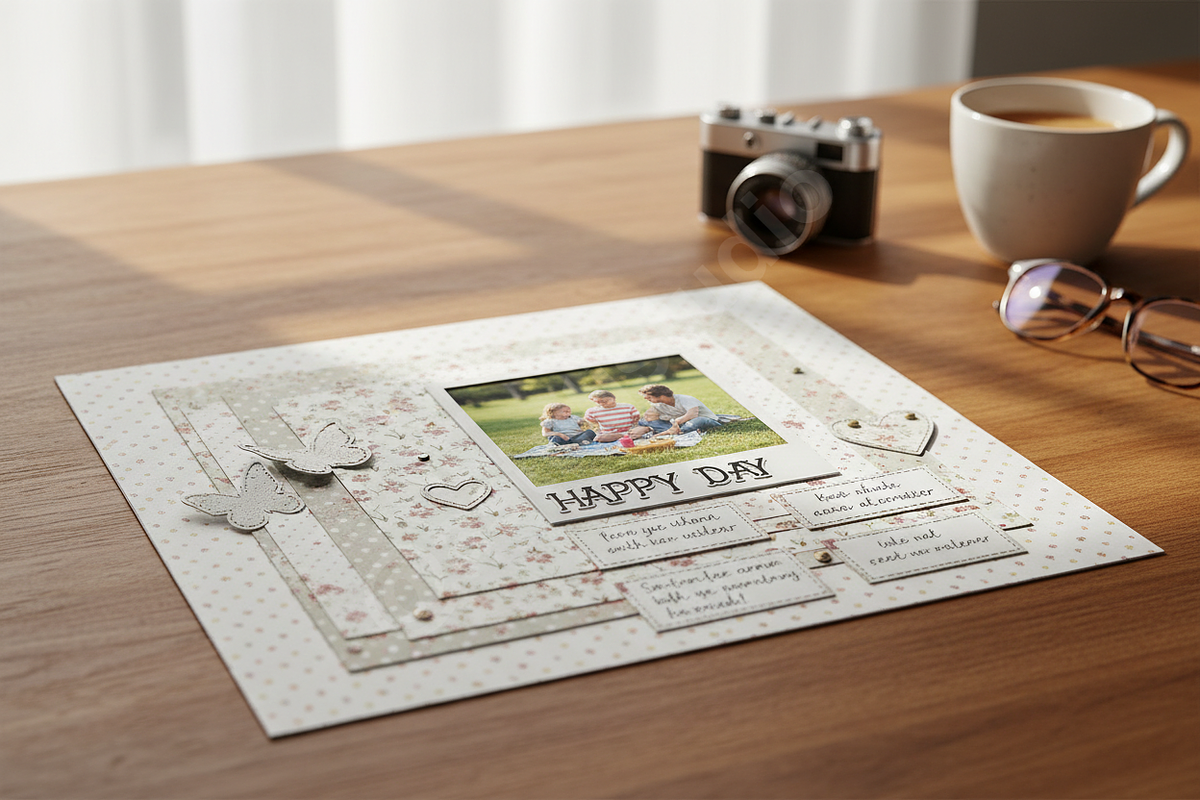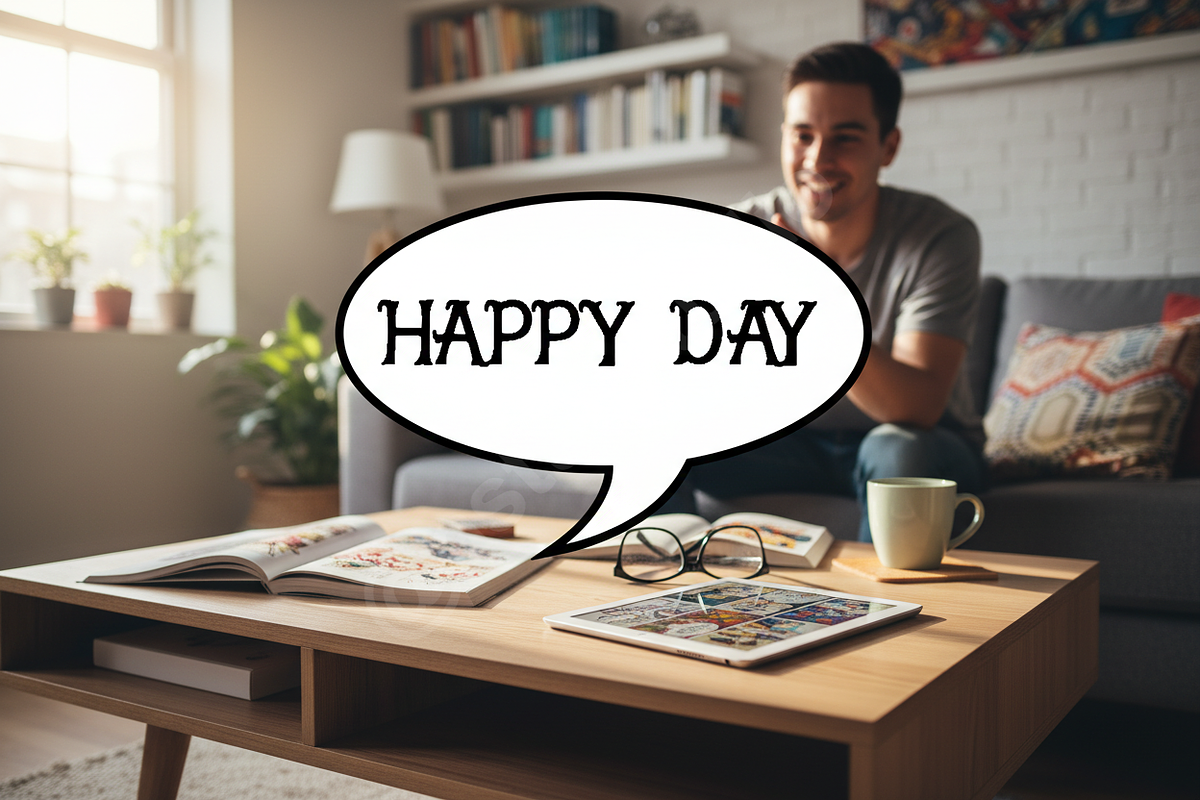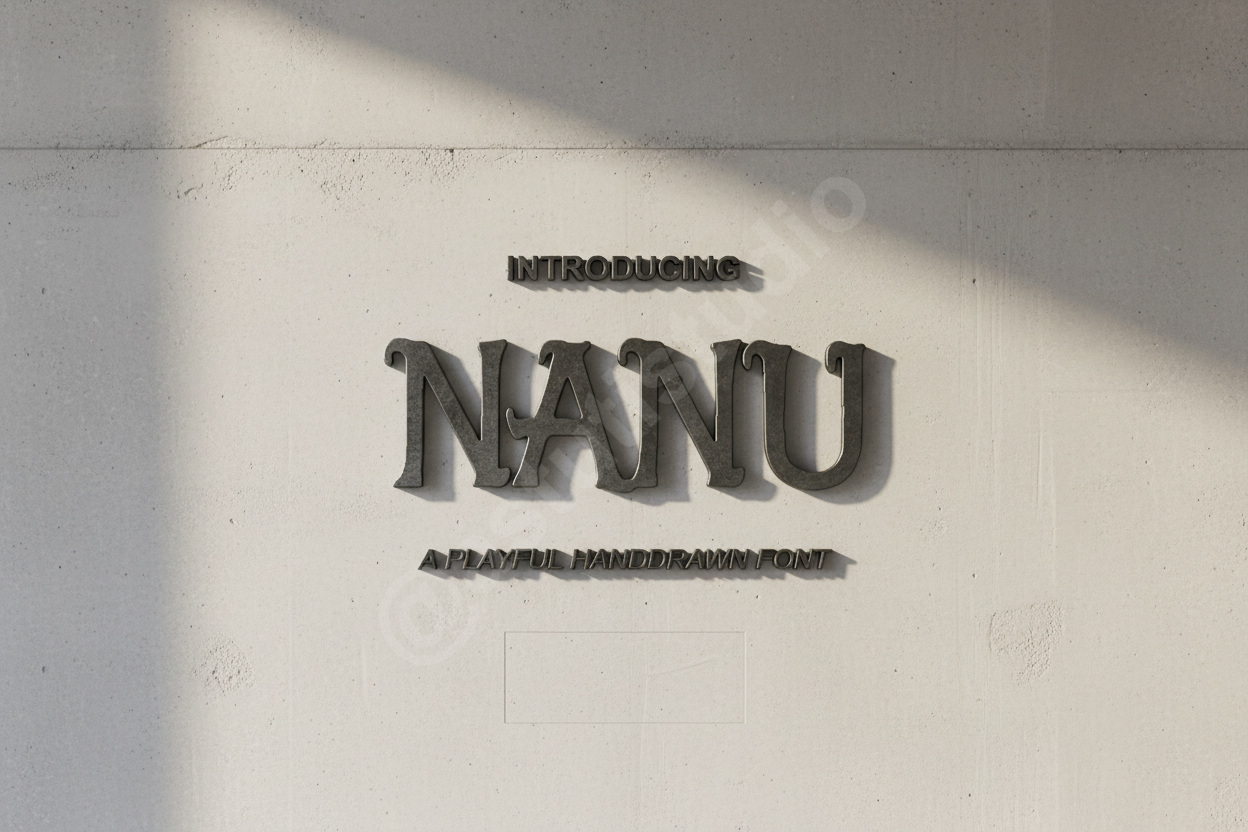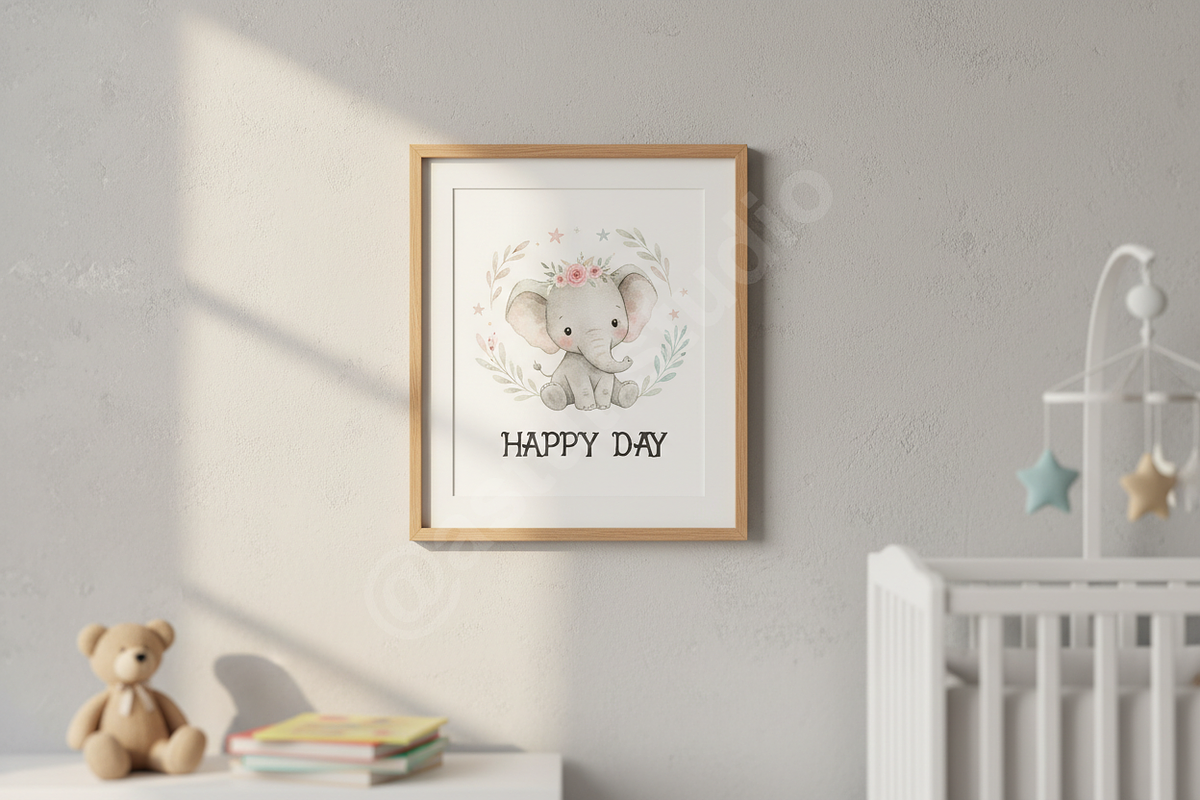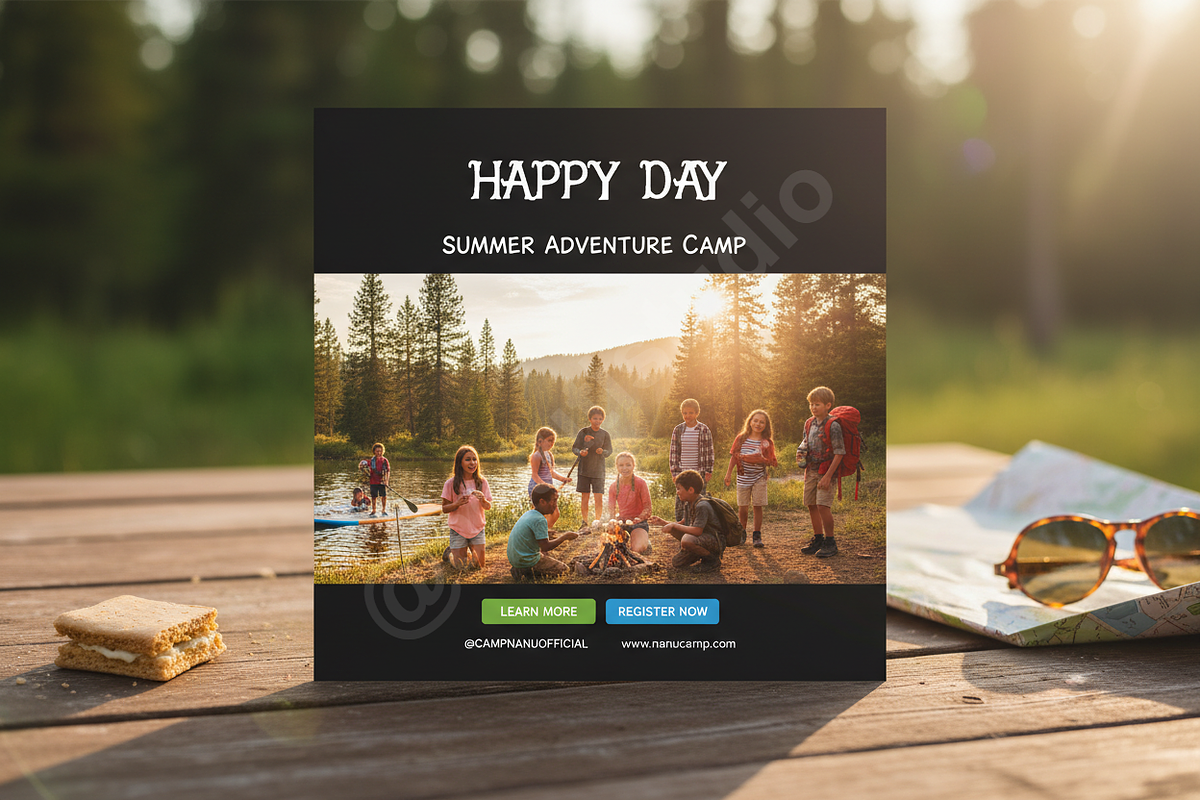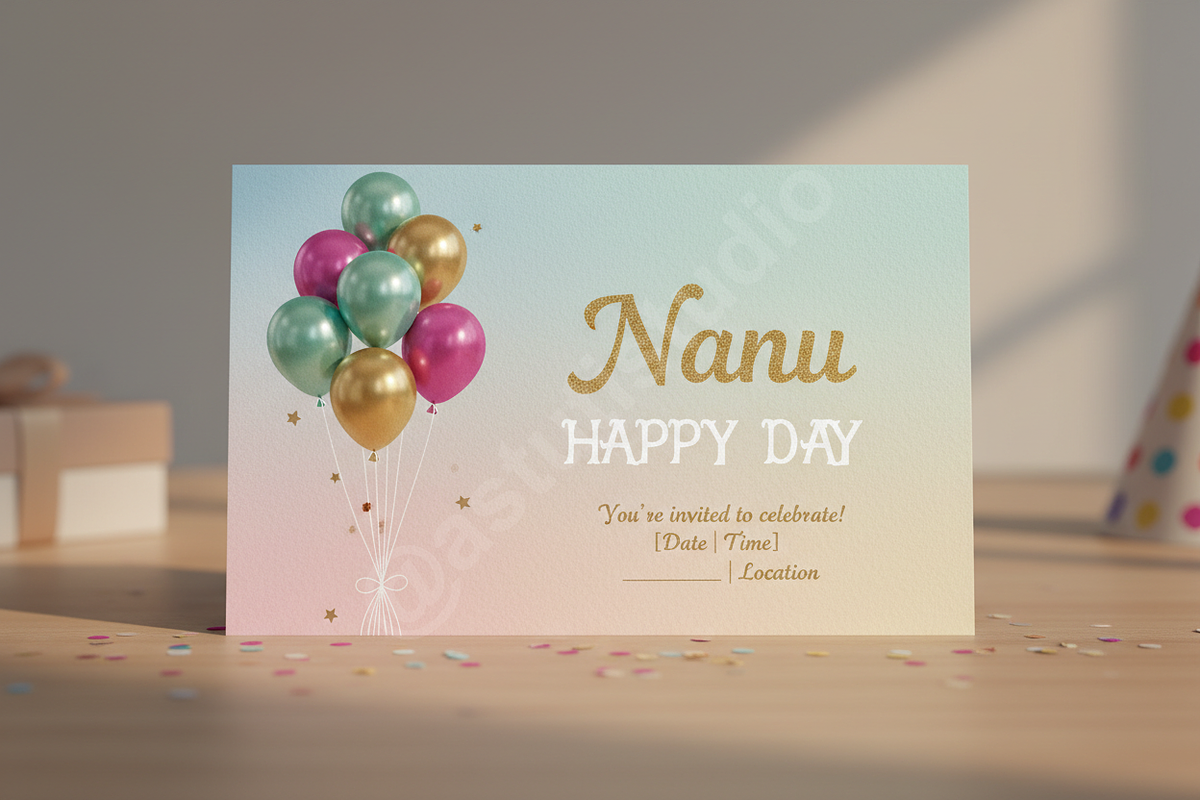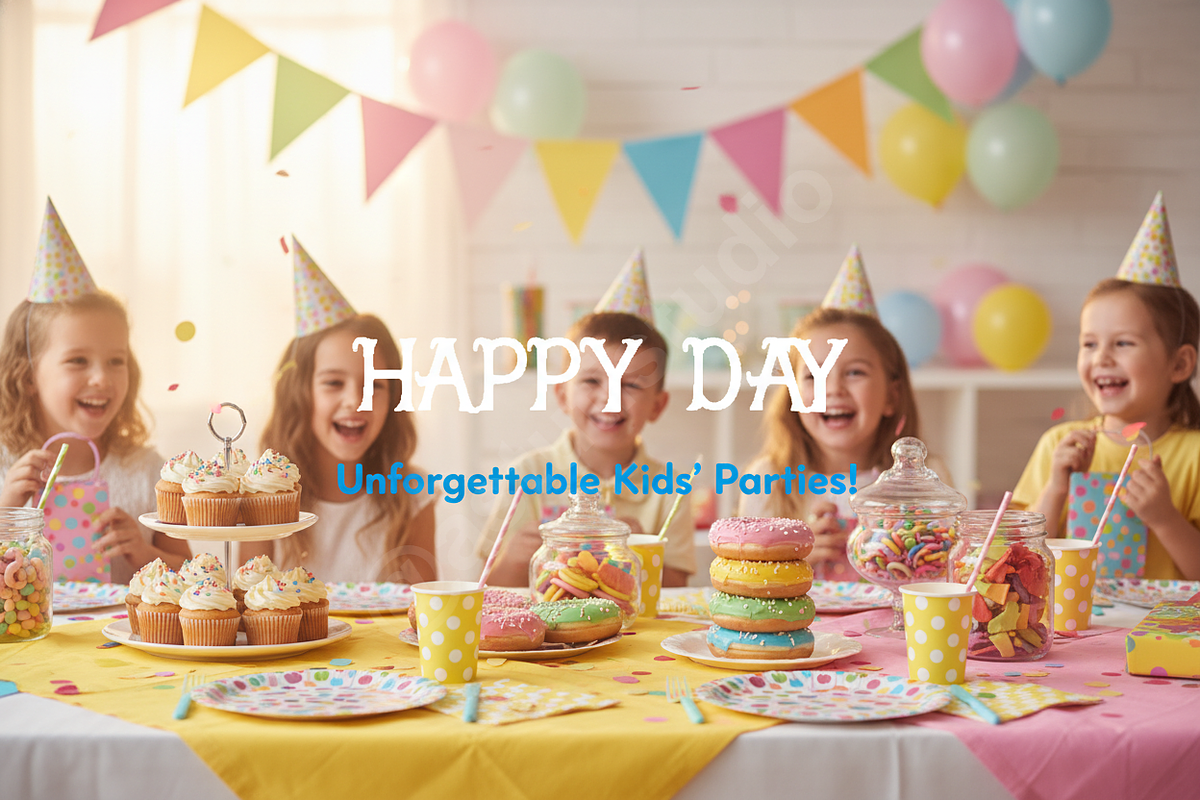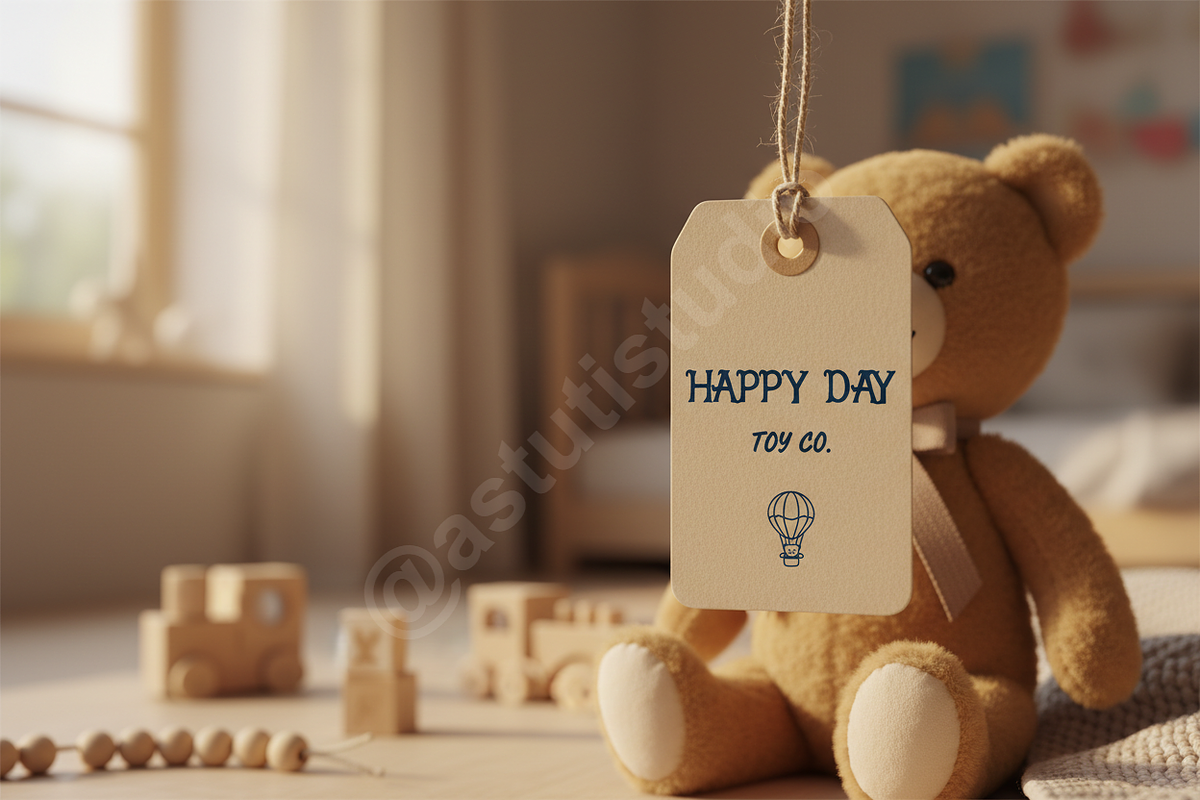
Nanu | Elegant Modern Serif Typeface
INTRODUCING NANU
Nanu is a sophisticated and timeless serif typeface meticulously crafted for high-end branding and editorial excellence. With its refined contrast and elegant curves, Nanu strikes a perfect balance between classic heritage and contemporary minimalism. Whether you are designing a luxury identity, a high-fashion magazine layout, or captivating social media content, Nanu adds a touch of effortless prestige to every creative project.
- Full uppercase and lowercase character set
- Sophisticated ligatures for a custom feel
- Comprehensive multilingual support
- Precise kerning and balanced spacing
- Clean, high-contrast aesthetic for digital and print